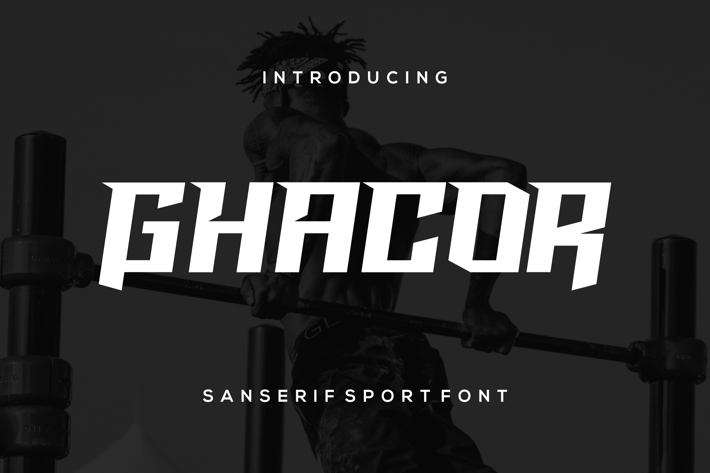
Ghacor - San Serif Sport Font
Ghacor is a unique font. Can make it easier to convey the message in your design. Use for awesome display, labeling, clothing, movie sceen, poster, movie title, gigs, album covers, logos, and much more.
Uppercase & lowercase letters
Numbers & punctuation